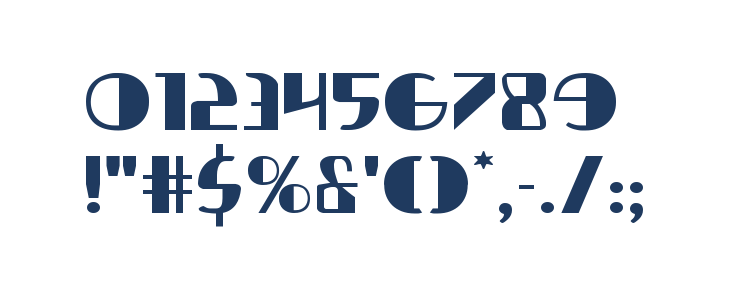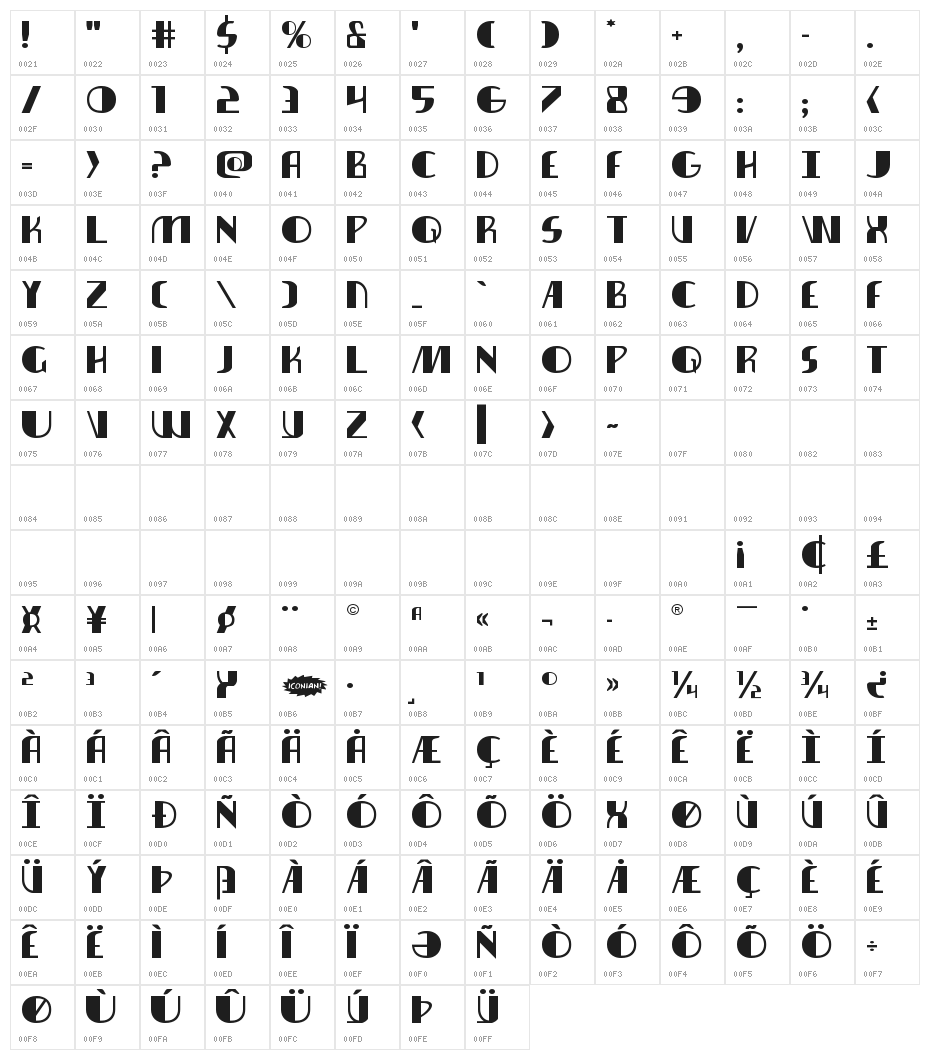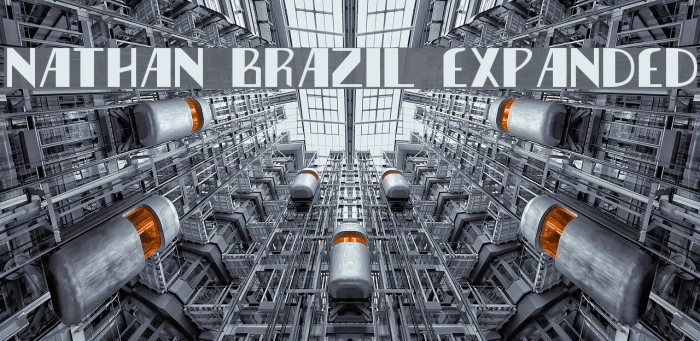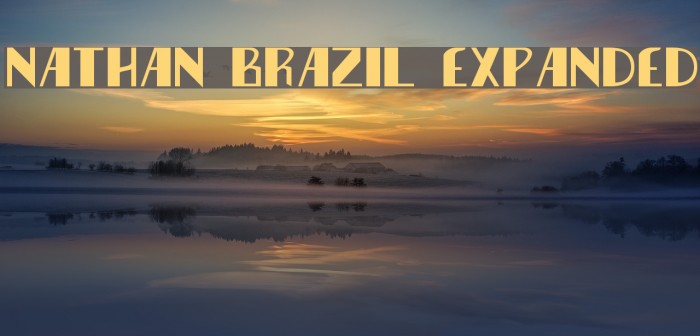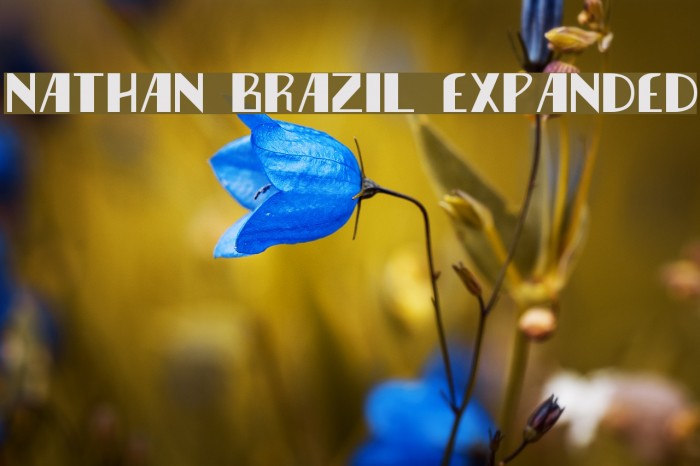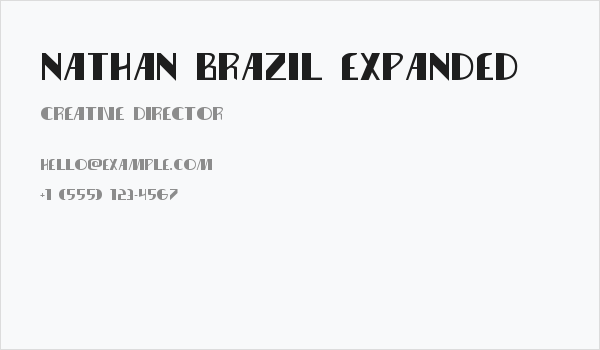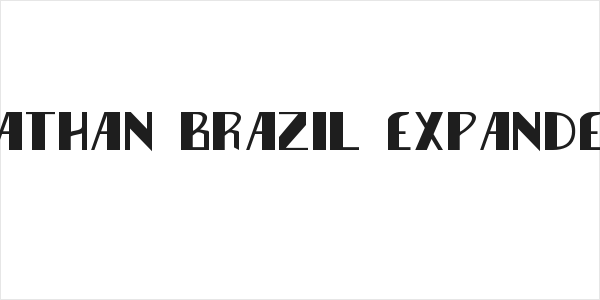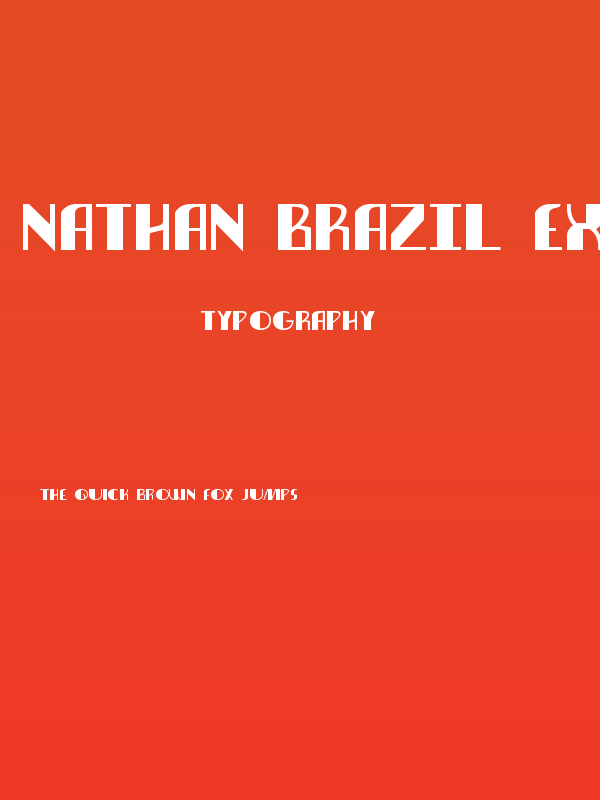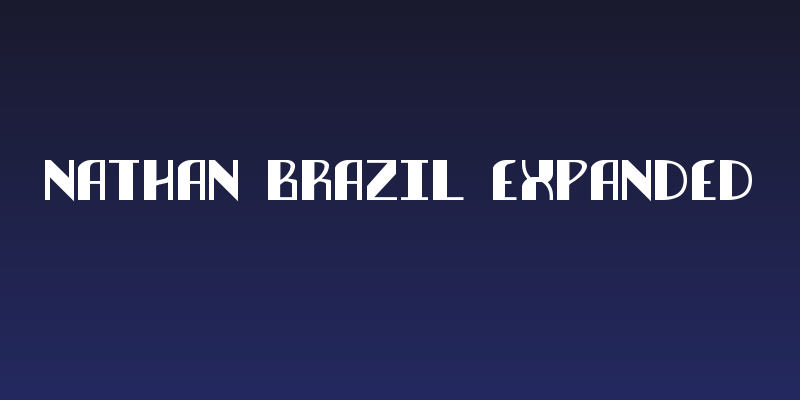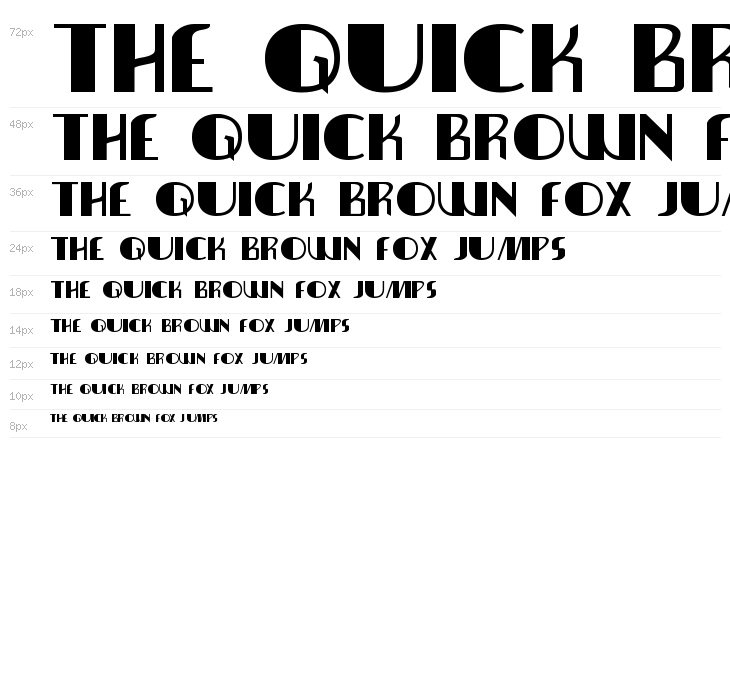
Nathan Brazil Expanded Font
Nathan Brazil Expanded Description
This font features a bold and striking design with a modern flair. The characters are crafted with a unique blend of geometric shapes and sharp angles, giving it a futuristic and dynamic appearance. The uppercase letters are particularly distinctive, with some characters featuring cut-out sections that add to the overall visual interest. The numbers and special characters maintain this bold style, ensuring consistency across all glyphs. Its expanded width and high contrast in stroke thickness make it stand out, ideal for making a statement in any design project.